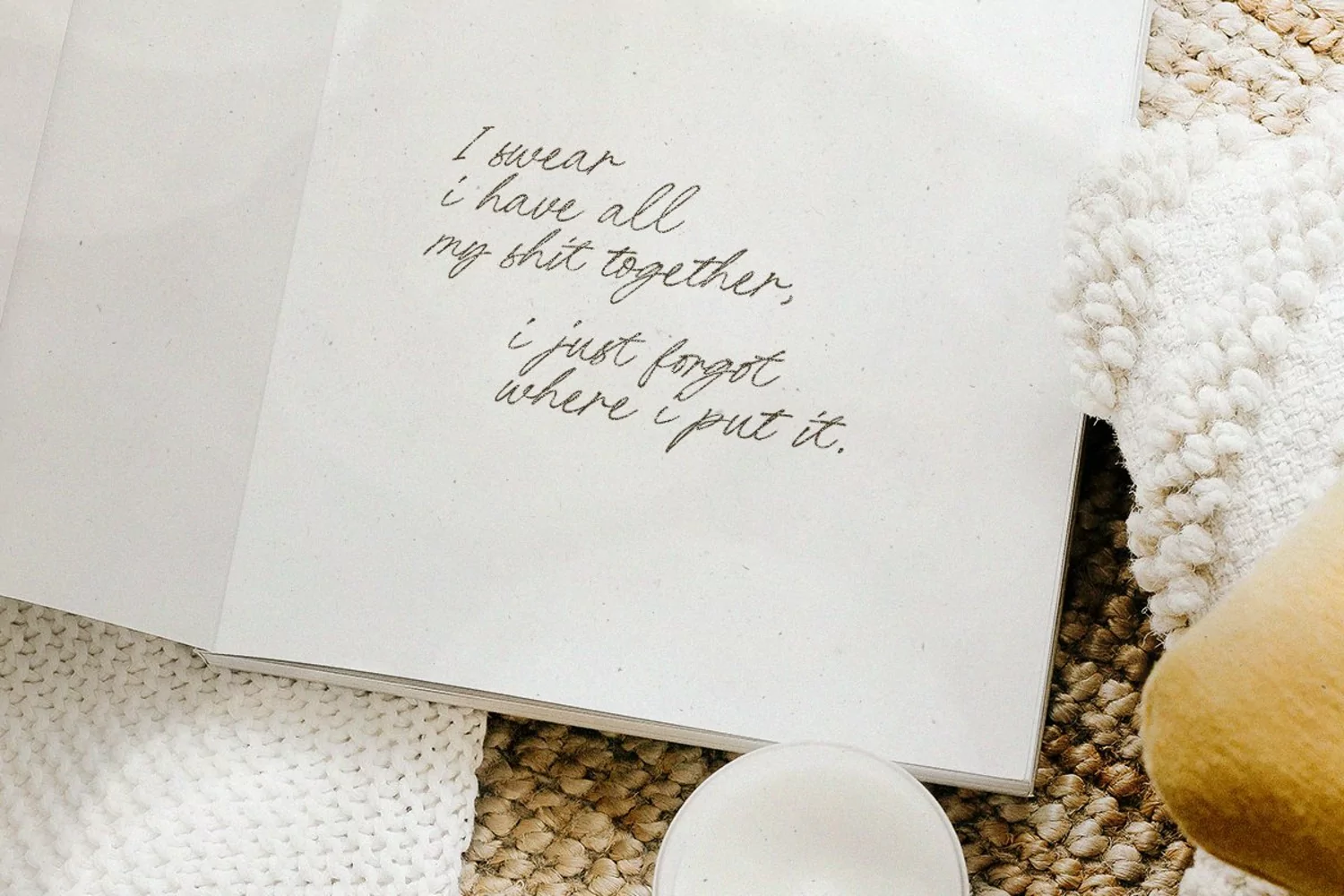
Minimalist Prints is minimal and basic signature script that you can use for any purpose such as your own customized signature, logo design, or even quotes. You also can use this font for pairing to another font like sans and serif. the best part is, this font also contains beautiful ligatures that will make your designs more natural that you can activated from opentype features in Adobe. This font is also support multi language.